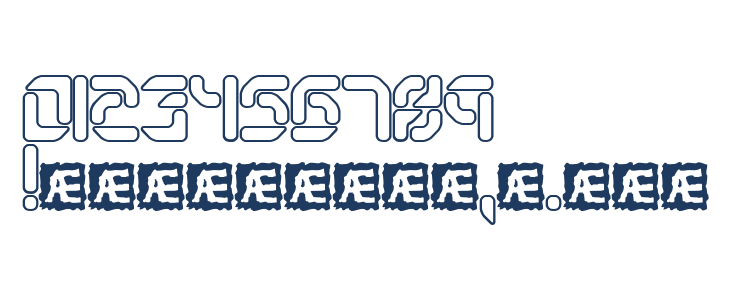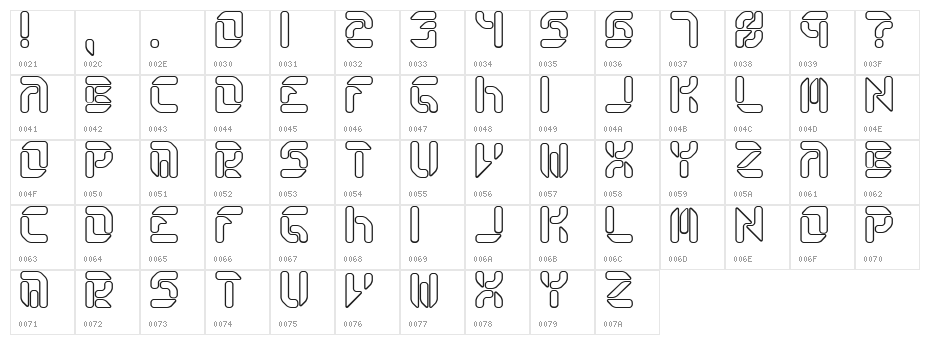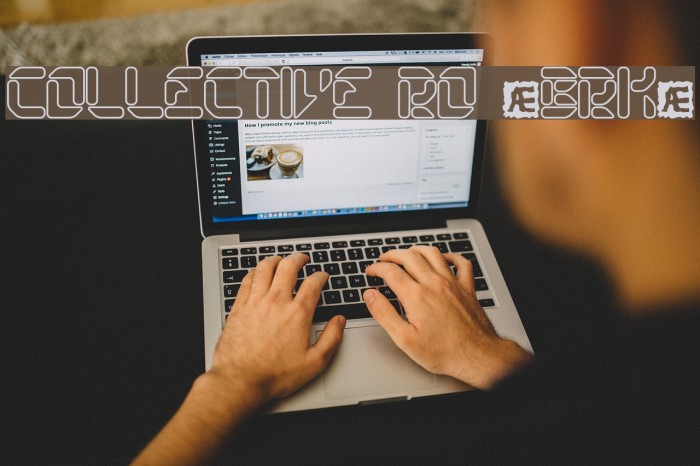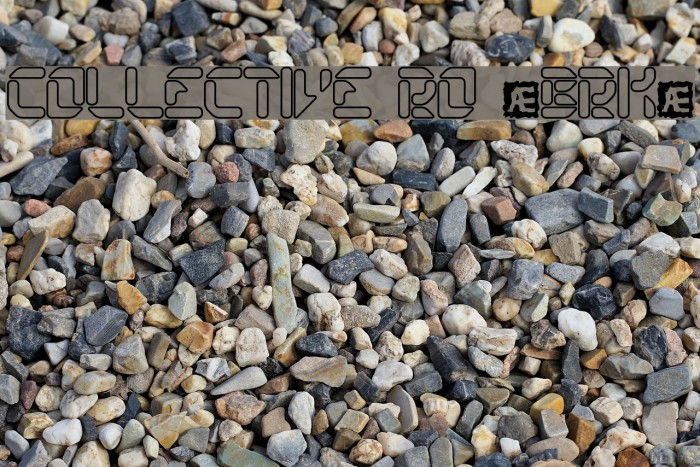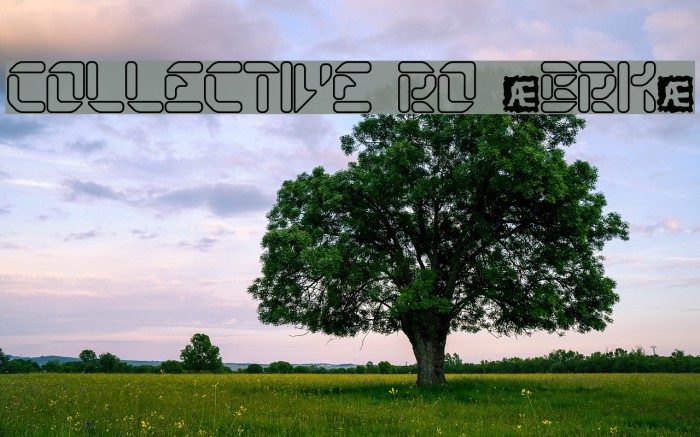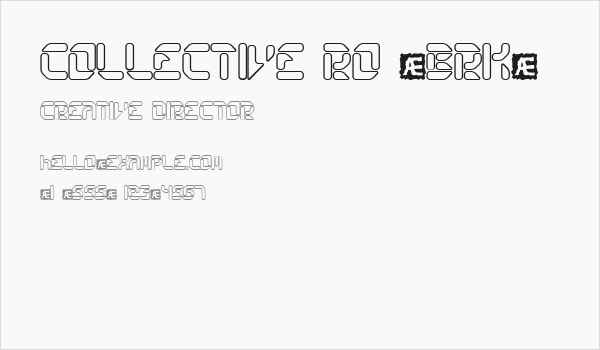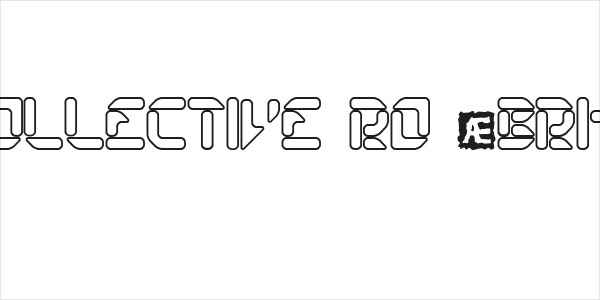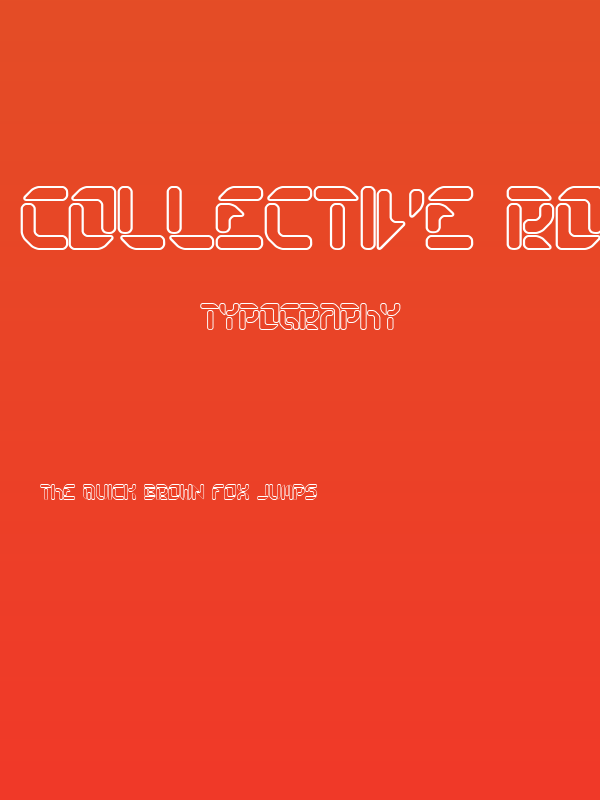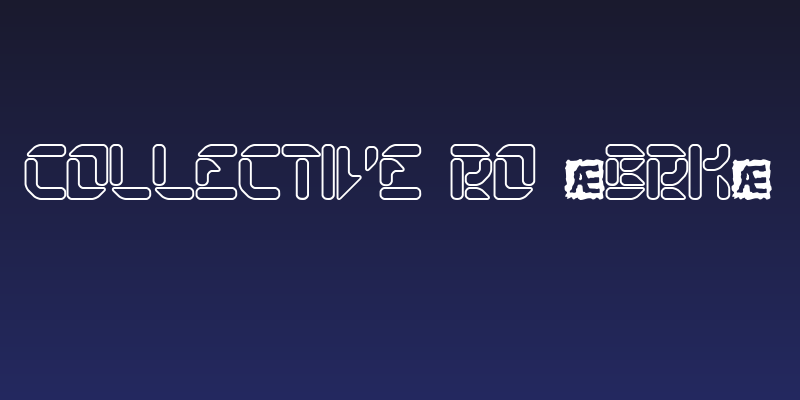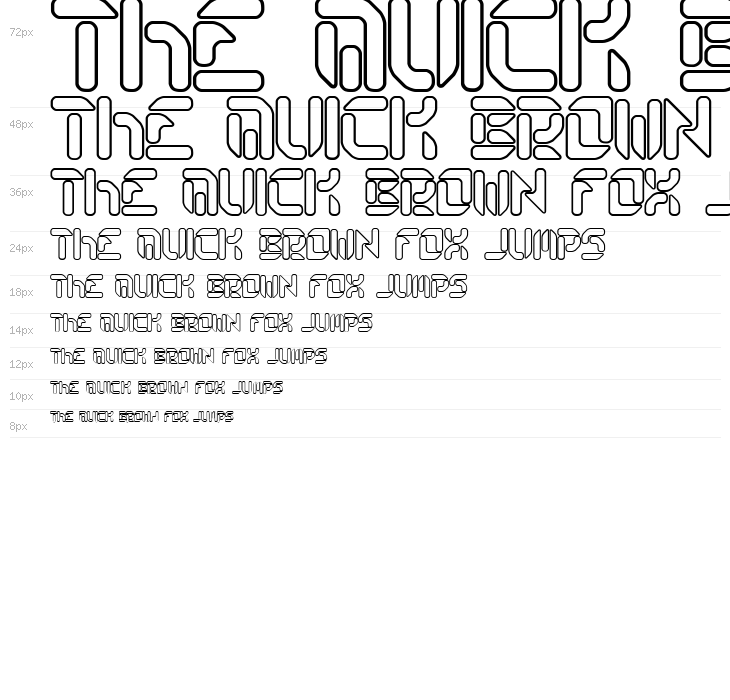
Collective RO [BRK] Font
This font features a futuristic and geometric design with a hollow, outlined structure. Each character is composed of bold, rounded lines that form a continuous loop, giving it a unique and modern appearance. The uppercase and lowercase letters maintain a consistent style, with a focus on symmetry and balance. The numerals and special characters follow the same design principles, ensuring uniformity across the entire typeface. The font's distinct style makes it suitable for projects that require a contemporary and eye-catching look.
Proposed ProjectsIdeal for sci-fi themed designs, modern branding, technology-related projects, and digital artwork.